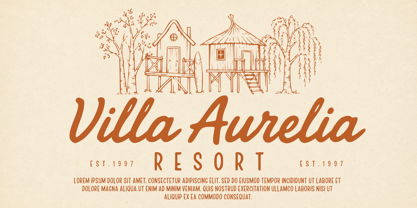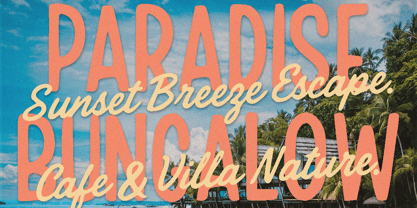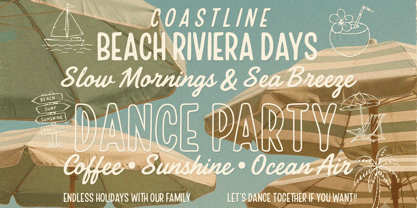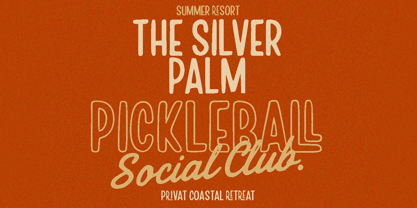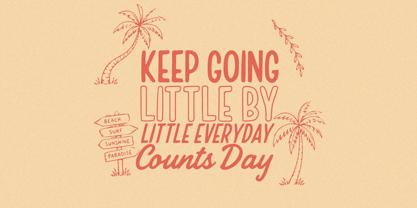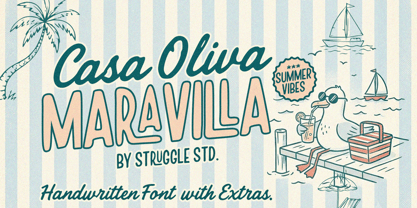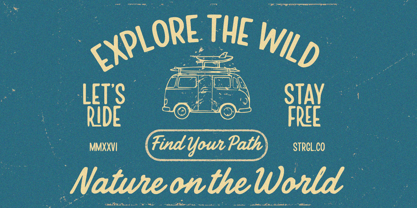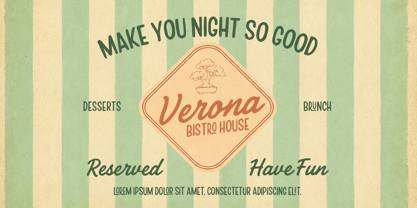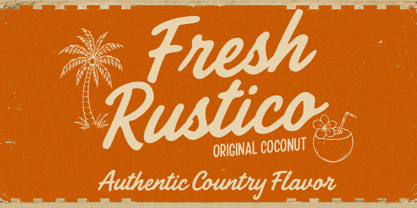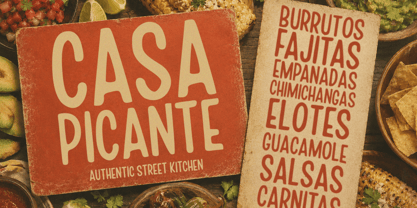
Casa Oliva Maravilla
by Struggle Studio
The Casa Oliva Maravilla Font Family was designed by Andri Kurniawan and published by Struggle Studio. Casa Oliva Maravilla contains 5 styles and family package options. More about this family
• Casa Oliva Maravilla Regular
• Casa Oliva Maravilla Extras
• Casa Oliva Maravilla Slant
• Casa Oliva Maravilla Script
• Casa Oliva Maravilla Outline
Casa Oliva Maravilla is a playful handwritten display font inspired by the warmth of Mediterranean summers, coastal vacations, and timeless vintage travel posters. Its smooth brush-style curves, relaxed letterforms, and cheerful personality bring a sense of sunshine, nostalgia, and effortless elegance to every design.
Designed with a versatile collection of extras, this typeface is perfect for branding, logos, packaging, café menus, beach clubs, travel promotions, apparel, social media graphics, greeting cards, posters, and other creative projects that call for a warm, handcrafted touch. Whether you're creating a retro-inspired identity or adding a relaxed coastal vibe to modern designs, Casa Oliva Maravilla delivers charm, authenticity, and exceptional readability.
Bring the spirit of endless summer to your typography with a font that feels both nostalgic and refreshingly contemporary.
Designers: Andri Kurniawan
Foundry: Struggle Studio